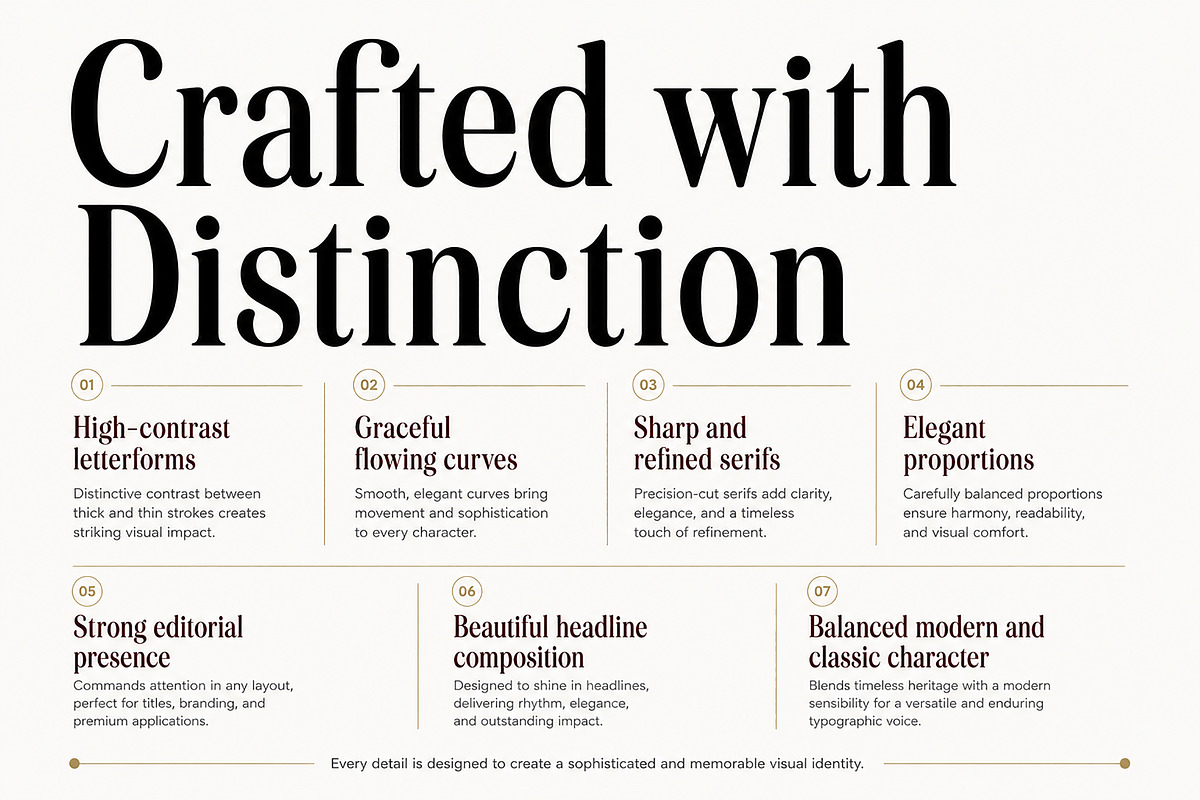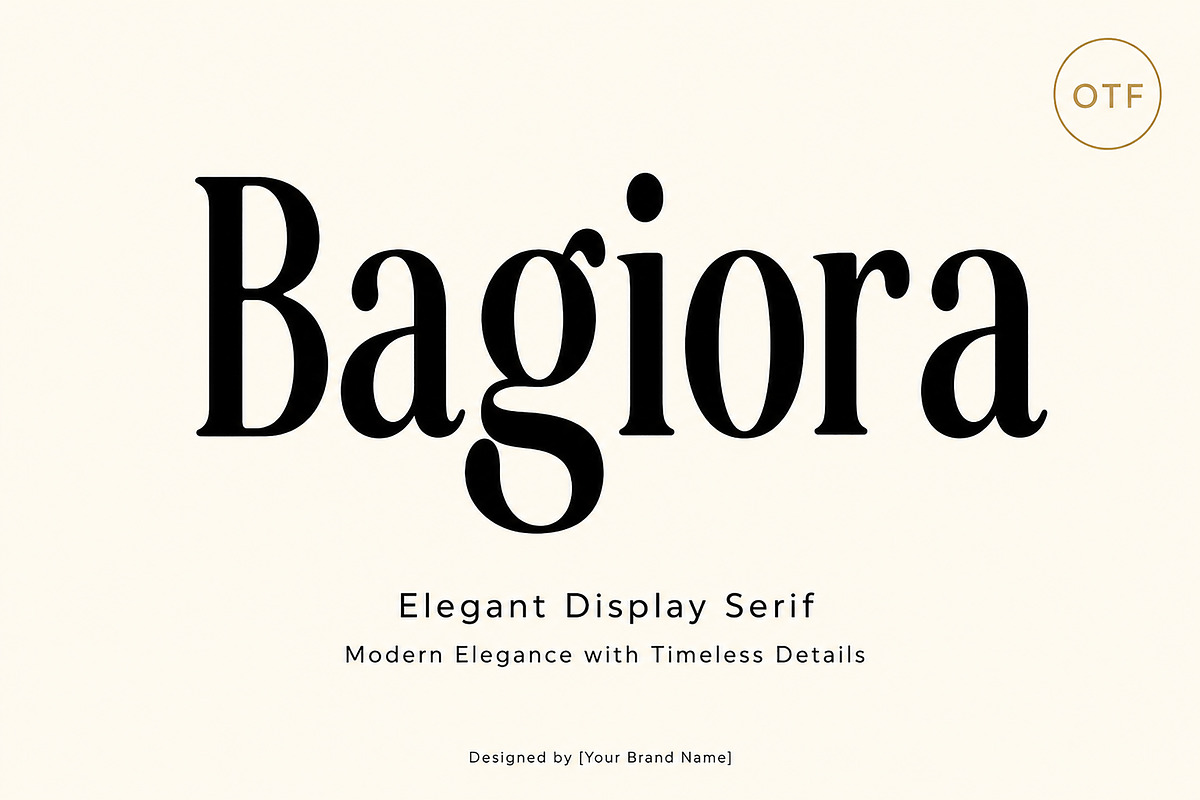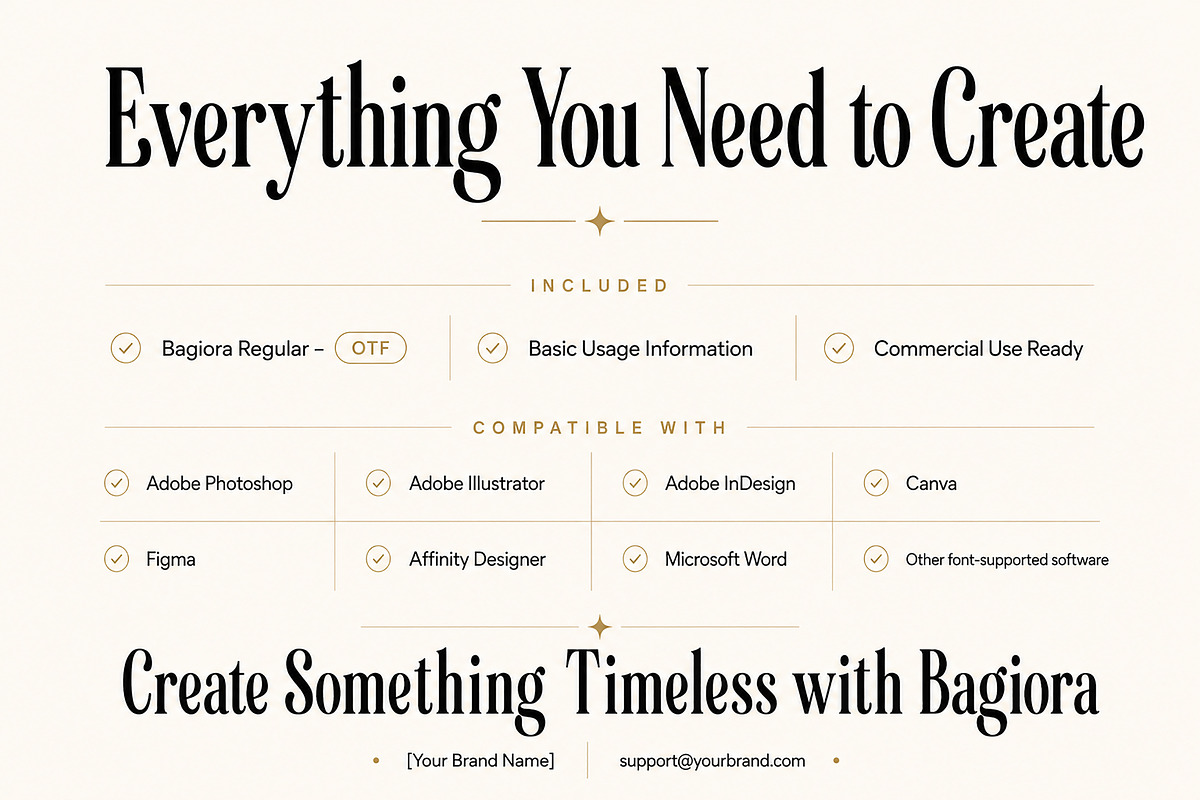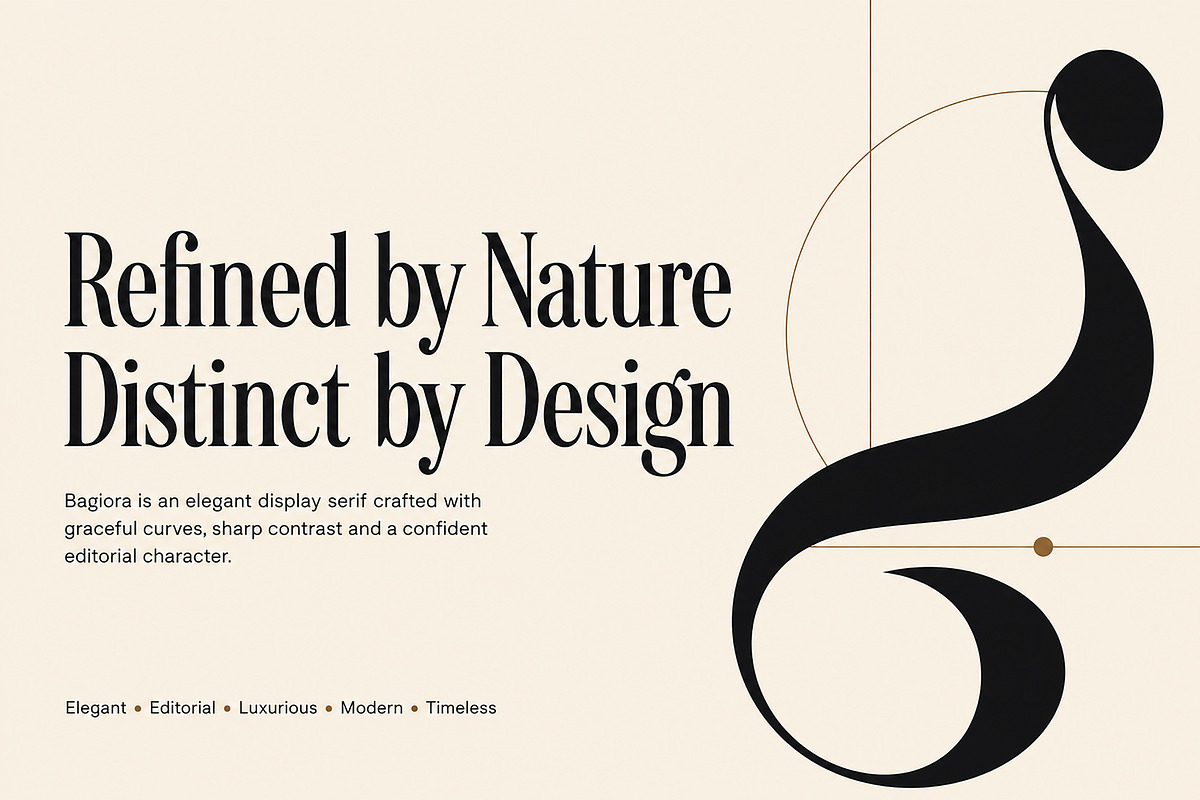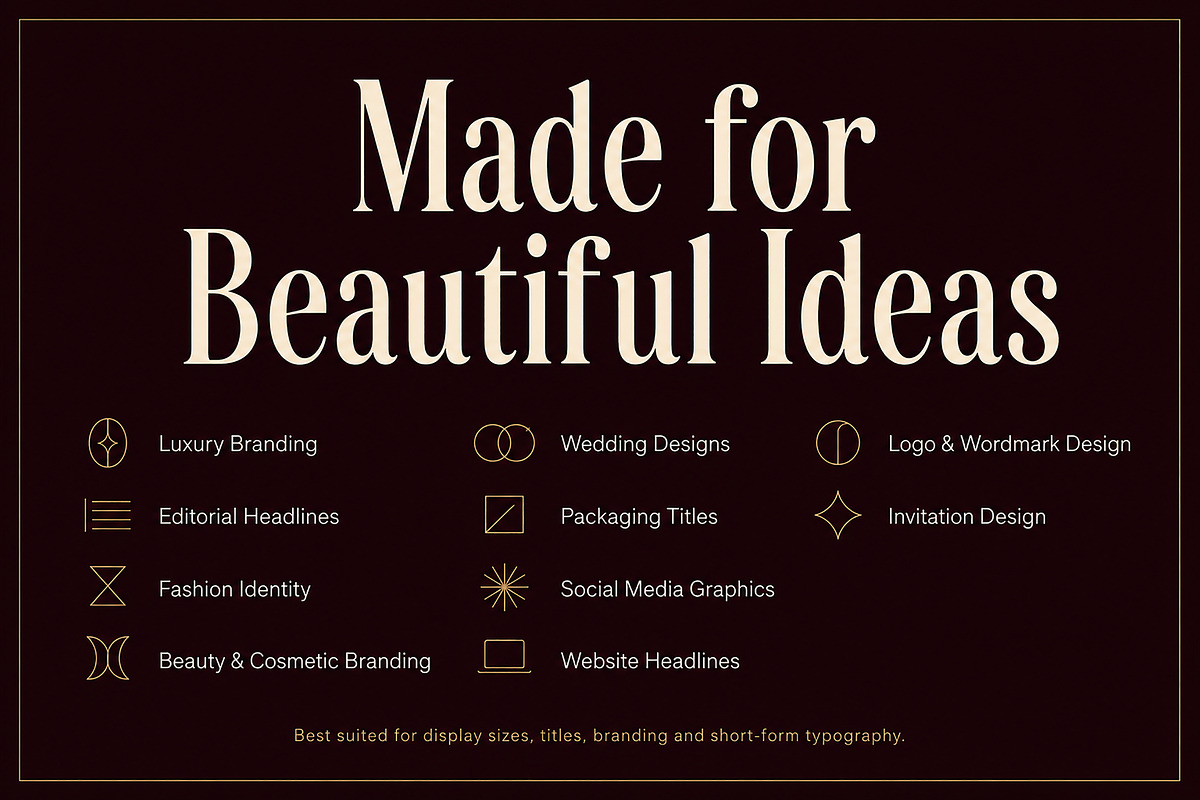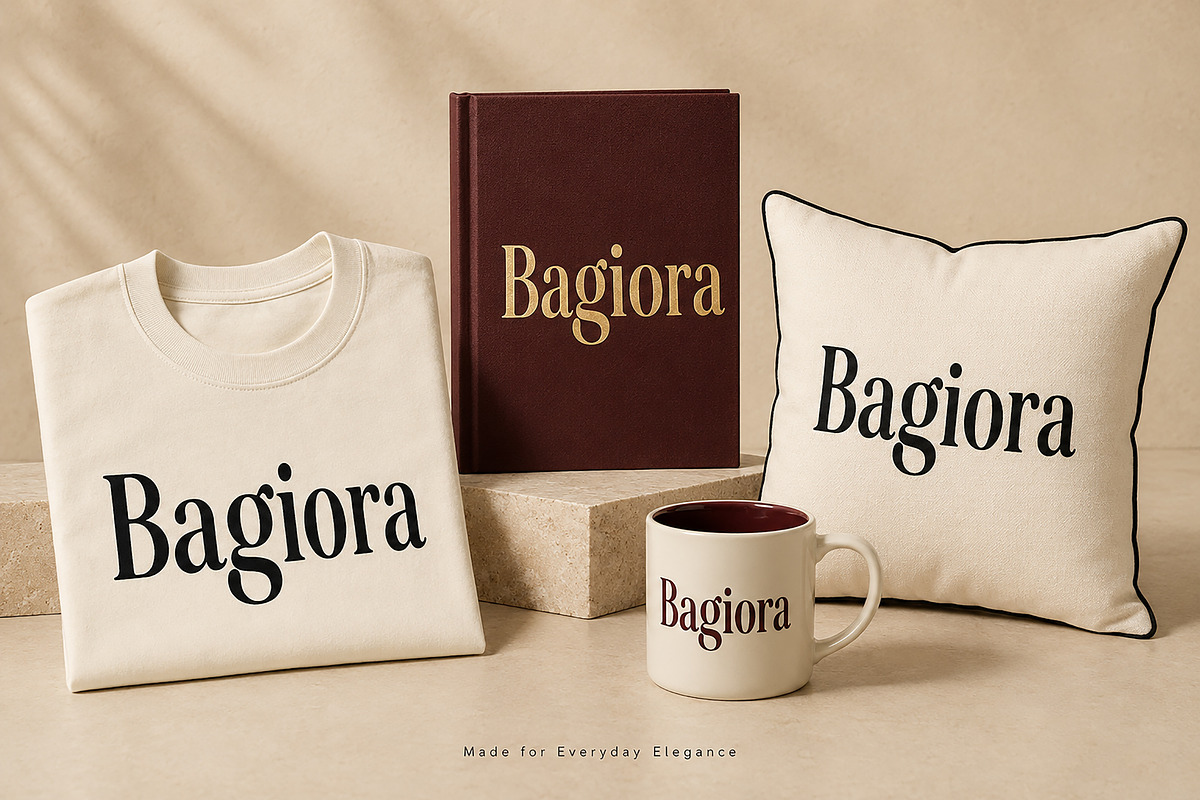
Bagiora – Elegant Display Serif Font
Meet Bagiora, an elegant display serif font designed with graceful curves, refined serifs, and striking contrast between thick and thin strokes. Its sophisticated combination of modern style and classic character gives every design a distinctive and timeless appearance.
Bagiora is ideal for luxury branding, logos, editorial headlines, fashion identities, beauty and cosmetic branding, wedding stationery, packaging titles, invitations, social media graphics, and website headings. Its expressive letterforms work best in large display sizes and short-form typography where visual impact matters most.
Whether you are creating an elegant brand identity, a premium product label, or a memorable editorial title, Bagiora brings refinement, confidence, and personality to your work.
Luxury branding and visual identities
Logos and wordmarks
Editorial and magazine headlines
Fashion and beauty branding
Cosmetic and fragrance packaging
Wedding stationery
Invitations and greeting cards
Product packaging
Website and blog headlines
Book covers
Apparel and merchandise
Elegant high-contrast letterforms
Graceful flowing curves
Sharp and refined serifs
Balanced modern and classic character
Strong editorial presence
Beautiful headline composition
Suitable for print and digital projects
Create something timeless with Bagiora—an elegant display serif crafted for beautiful ideas and distinctive visual identities.
Bagiora is an elegant display serif font featuring graceful curves, refined serifs, and striking contrast. Perfect for luxury branding, logos, editorial headlines, fashion, beauty, packaging, weddings, invitations, and sophisticated display typography.